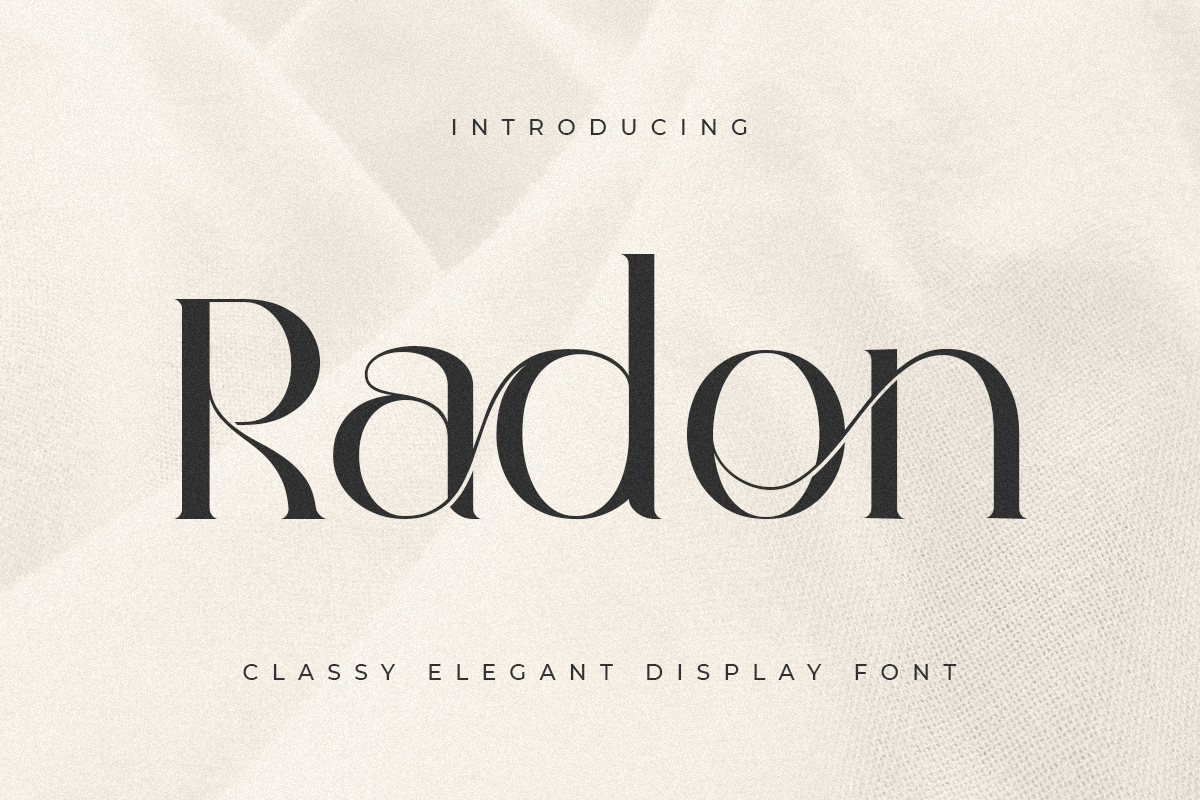
Radon
-Classy Elegant Display Font
Radon
A Classy Elegant Display Font that we created special for elegant and Fashion branding needs that we created special for elegant branding needs, with extra ligature and alternates in unique shape will be ready to add value of your brand. It so nice to leverage designer or product owner that need solutions to make their design look more classy and modern. And specially for this font, We prepared any ligatures, and any alternate characters to help you create unlimited variations for your creative needs.
• Any options to get creative variations (combination of Alternate and Ligatures)